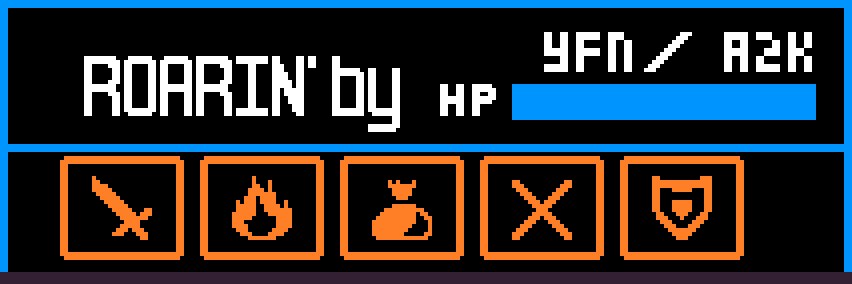
Good font! Although you should remove the tittles of the accented lowercase i's.
The W now matches Flowery's text.
Didn't have to update the Y because it is already pixel for pixel with Flowery's Y (wie cool ist das?).